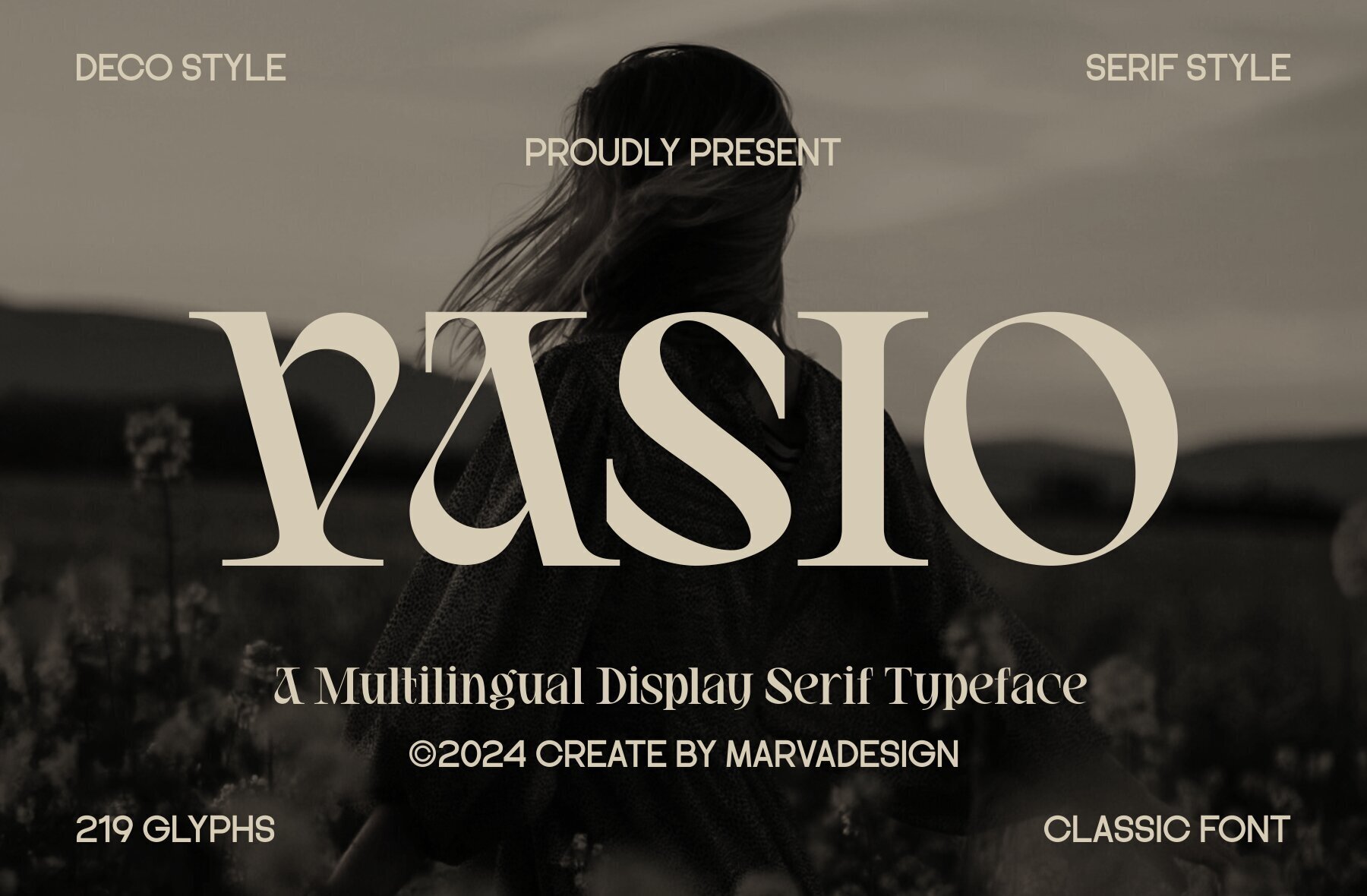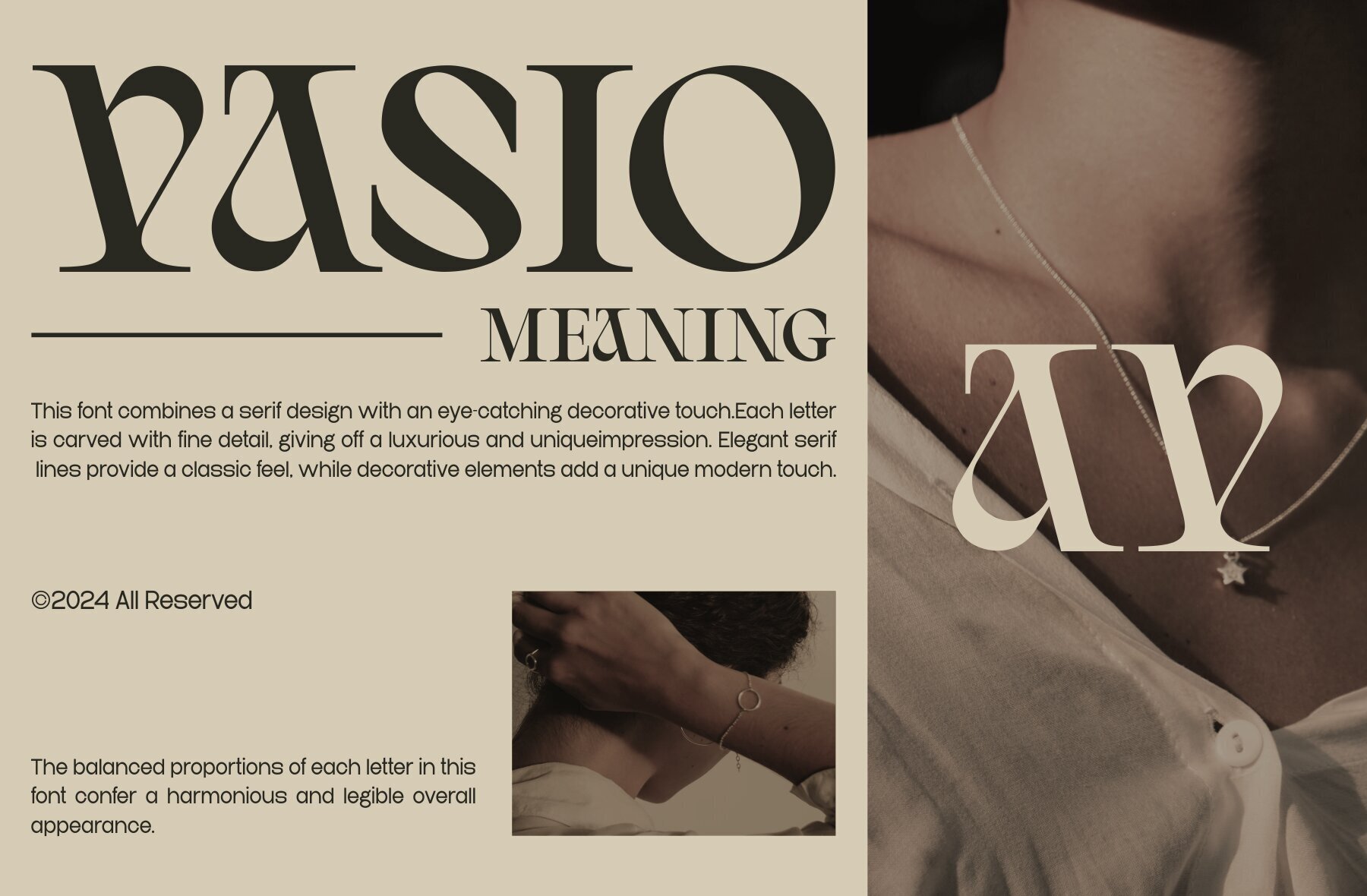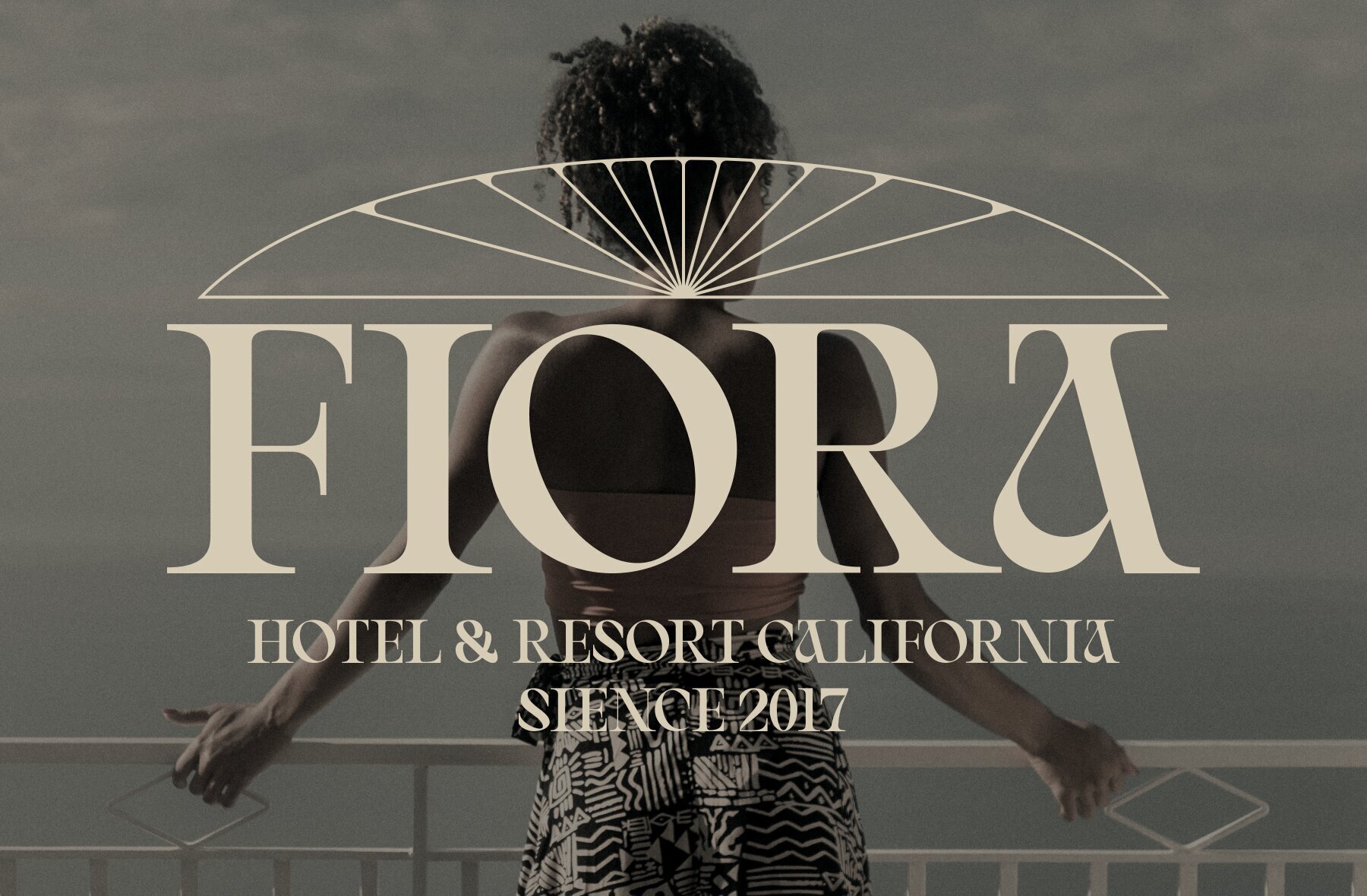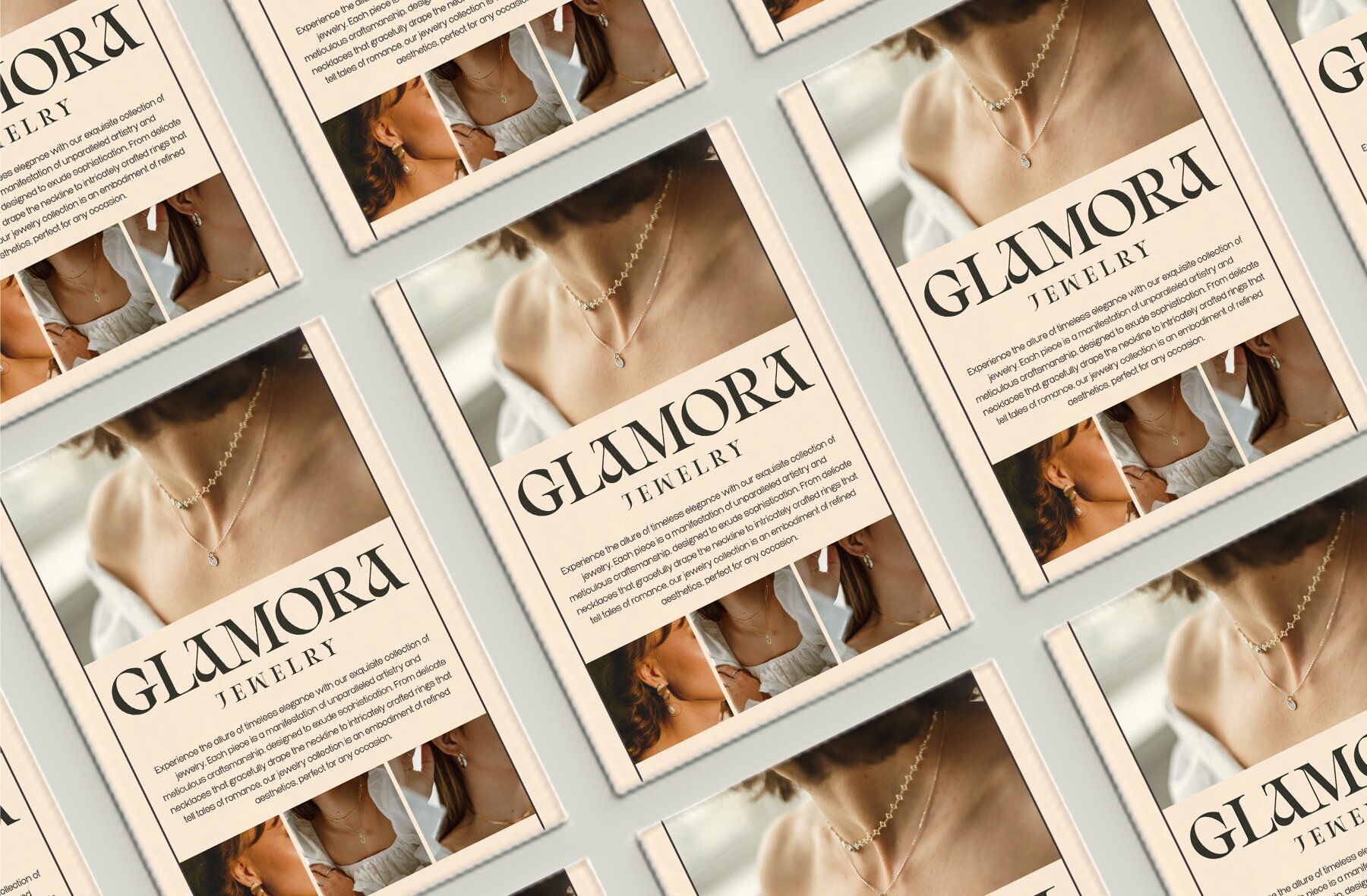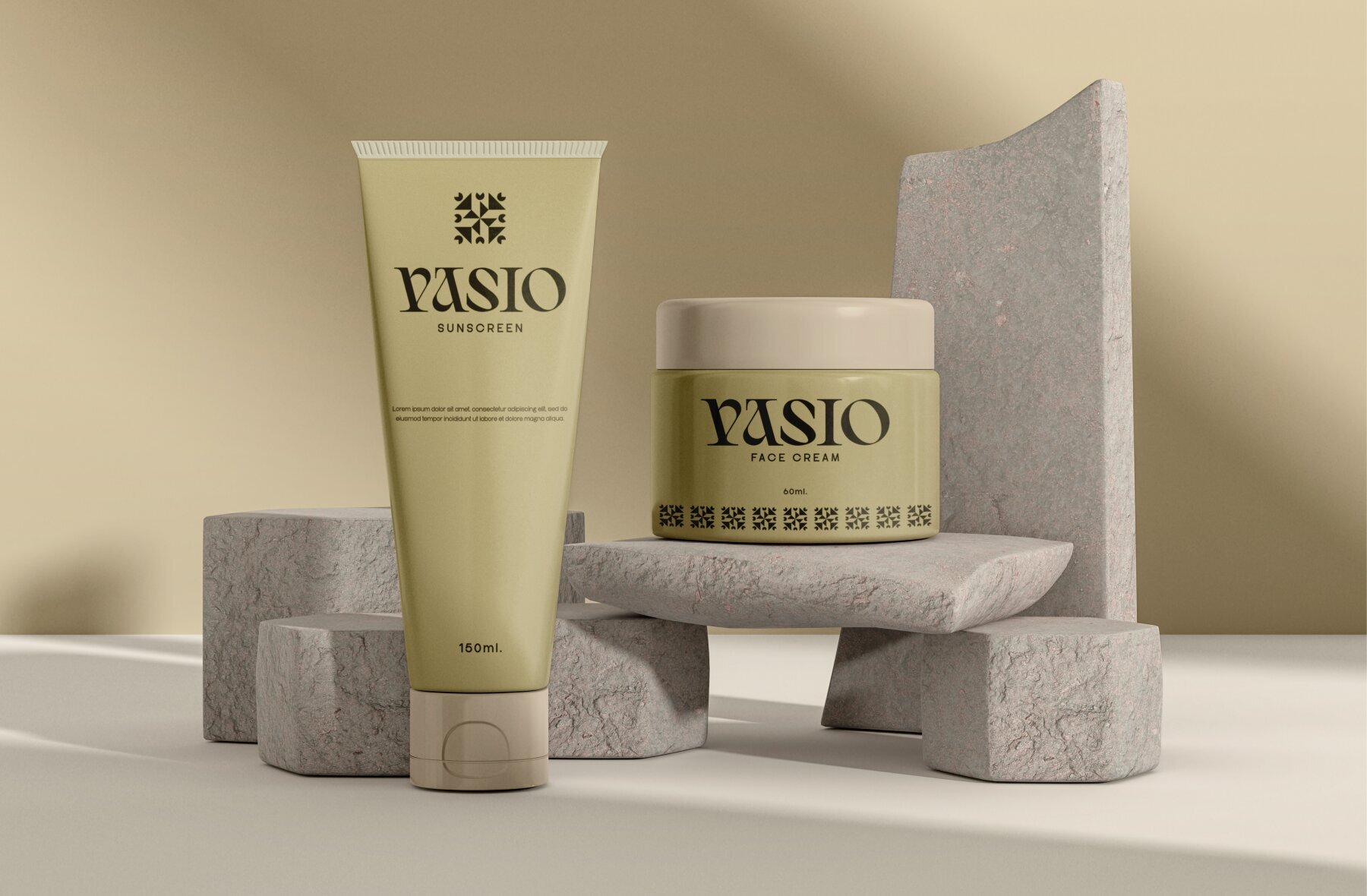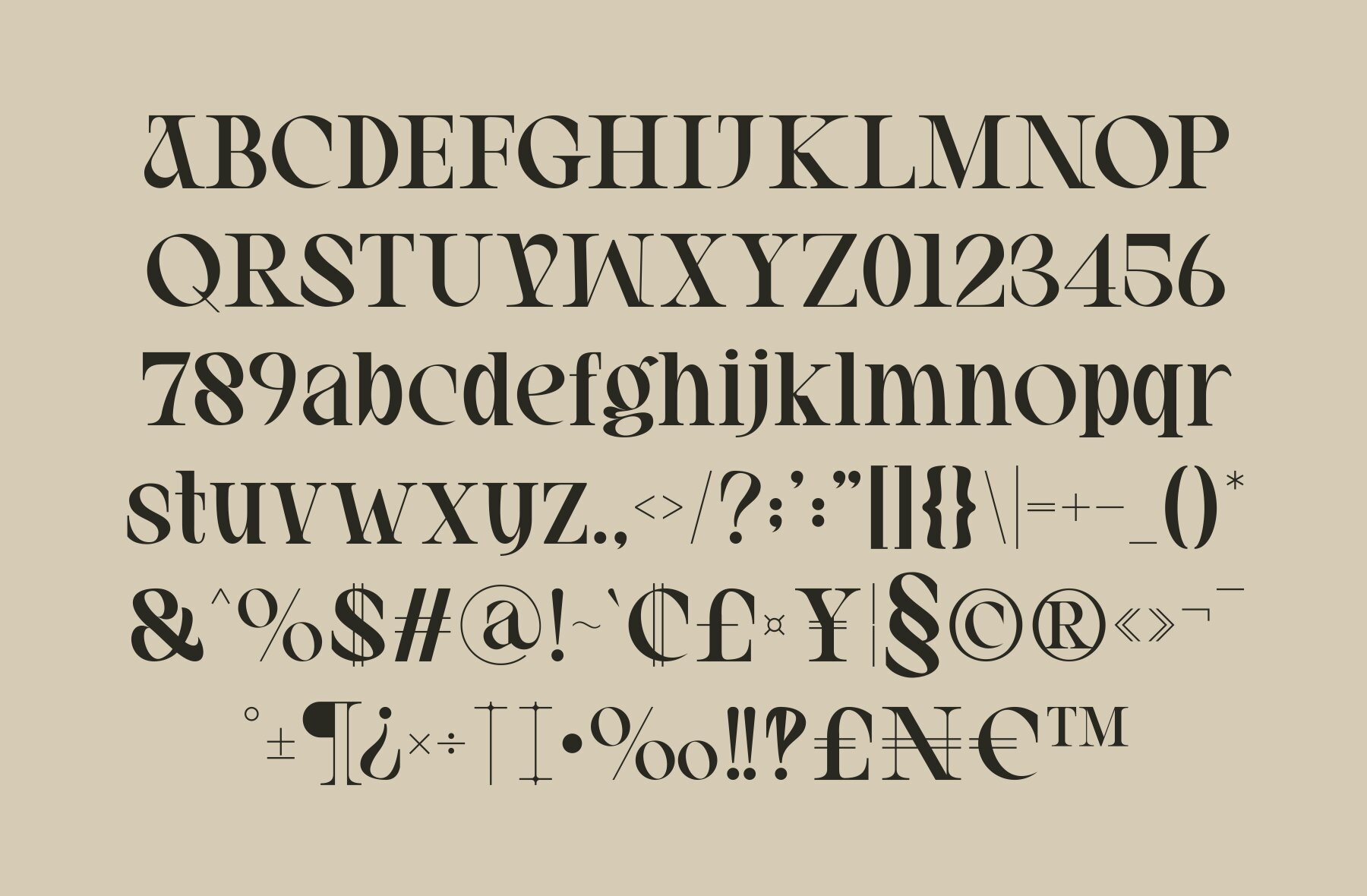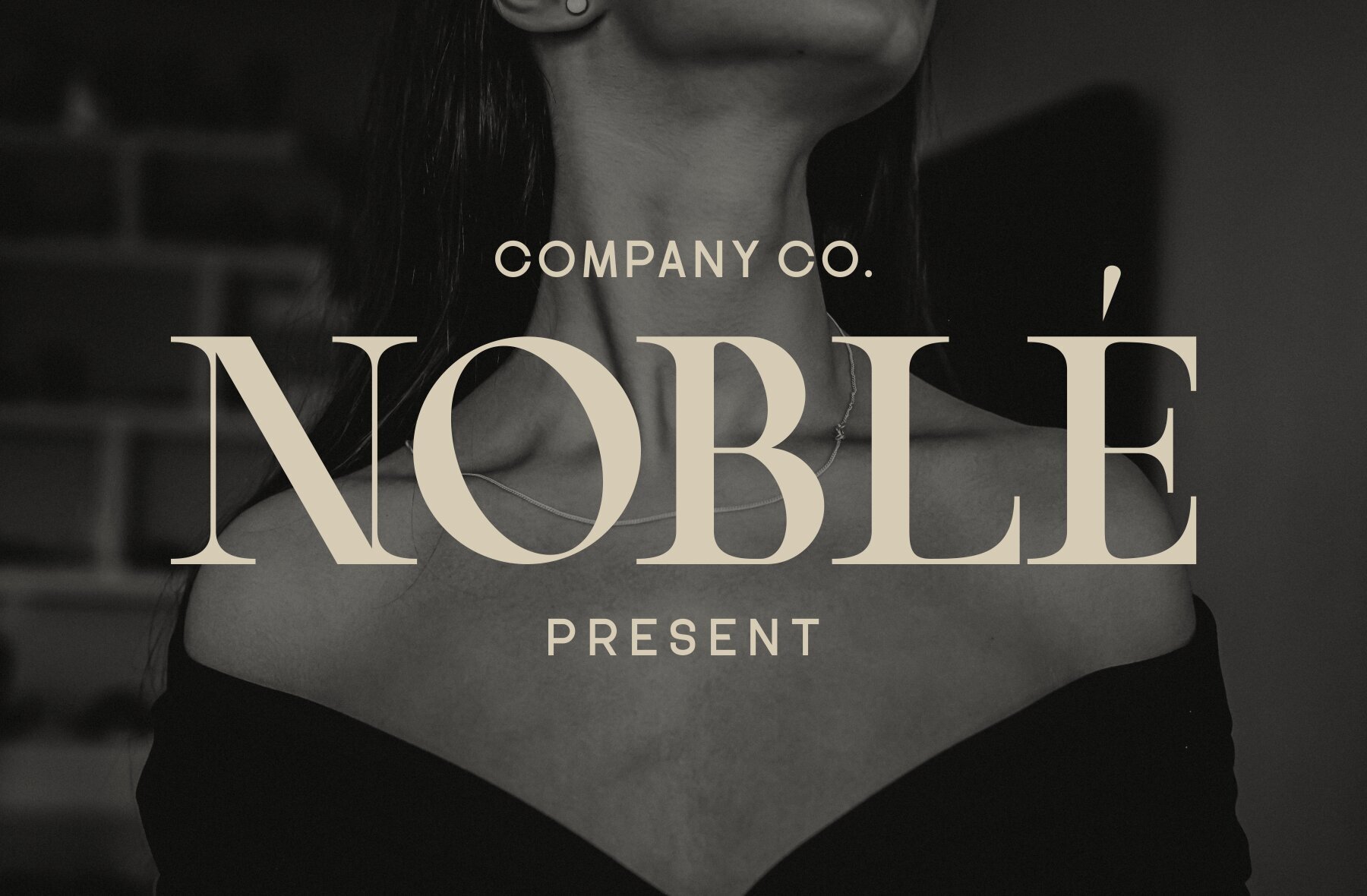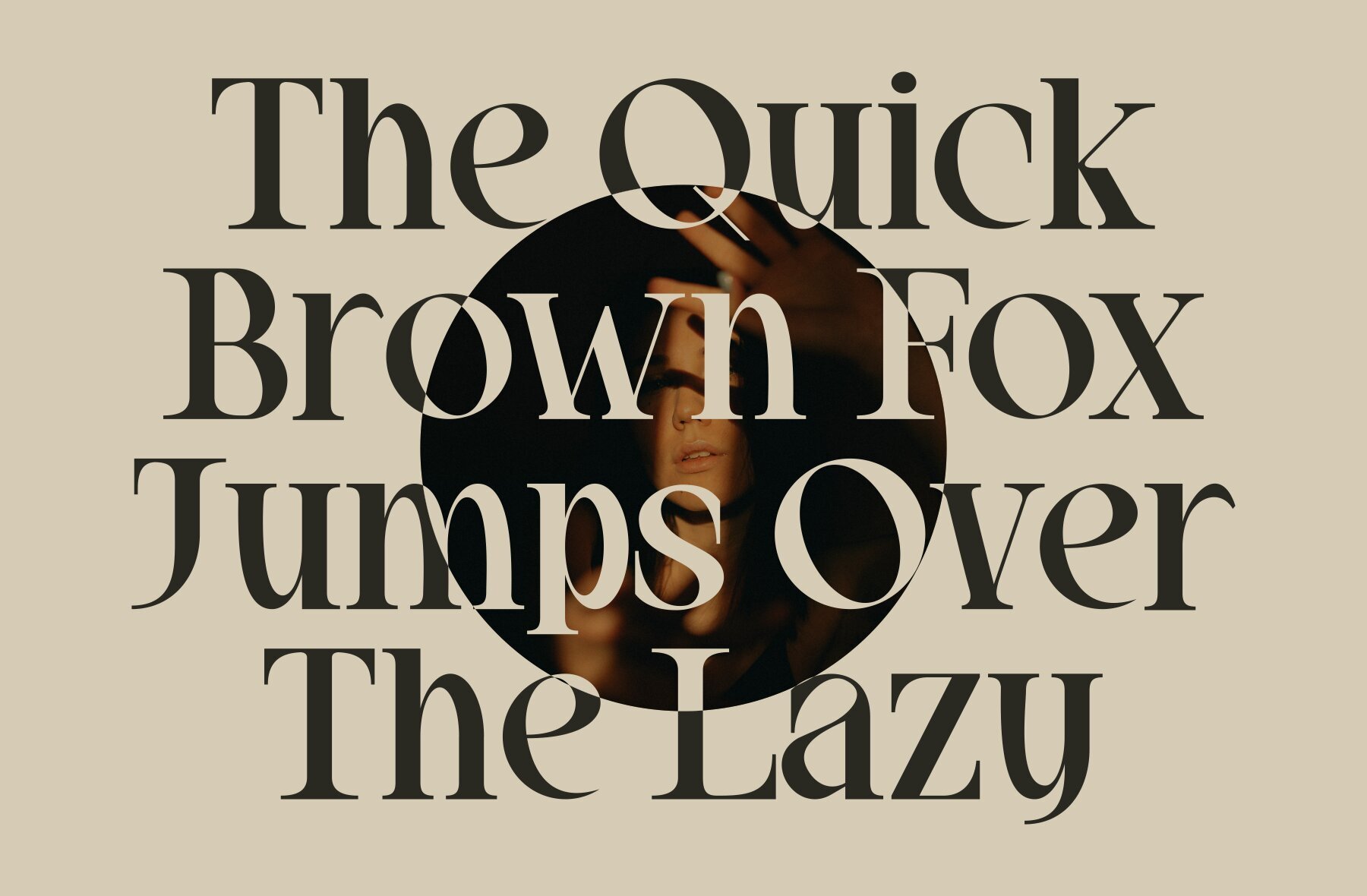
Vasio Font
Vasio Regular
Vasio is an elegant serif font with a decorative style, perfect for a variety of applications. Its consistent spacing and refined appearance make it ideal for products such as skincare, cosmetics, logos, branding, magazines, and posters. This versatile font stands out in numerous contexts.Vasio: Classic Display Serif Font